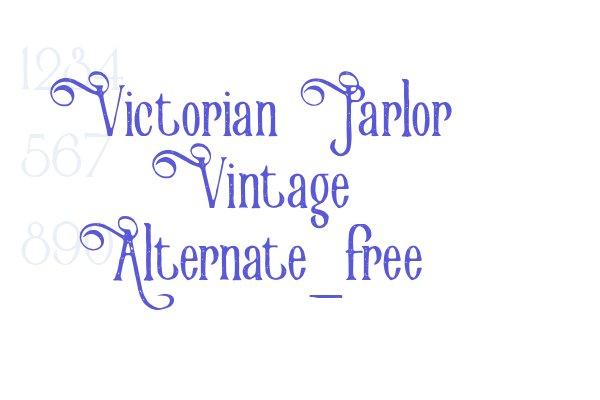
Victorian Parlor Vintage Alternate_free is a curly and fancy font designed by Eric Kurniawan. This font family exudes a vintage Victorian charm with its ornate and elaborate design. Ideal for projects that require a touch of elegance and sophistication, this font is perfect for invitations, labels, and other decorative purposes.
Font Name: Victorian Parlor Vintage Alternate_free
Designer: Eric Kurniawan
Font Family: Victorian Parlor Vintage Alternate_free